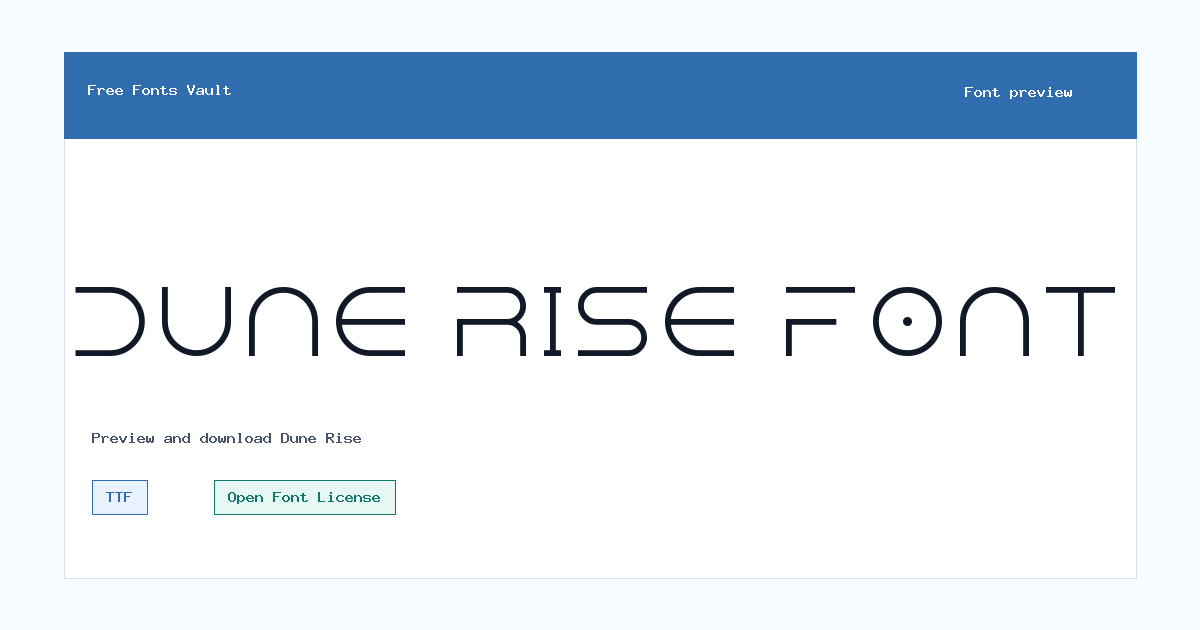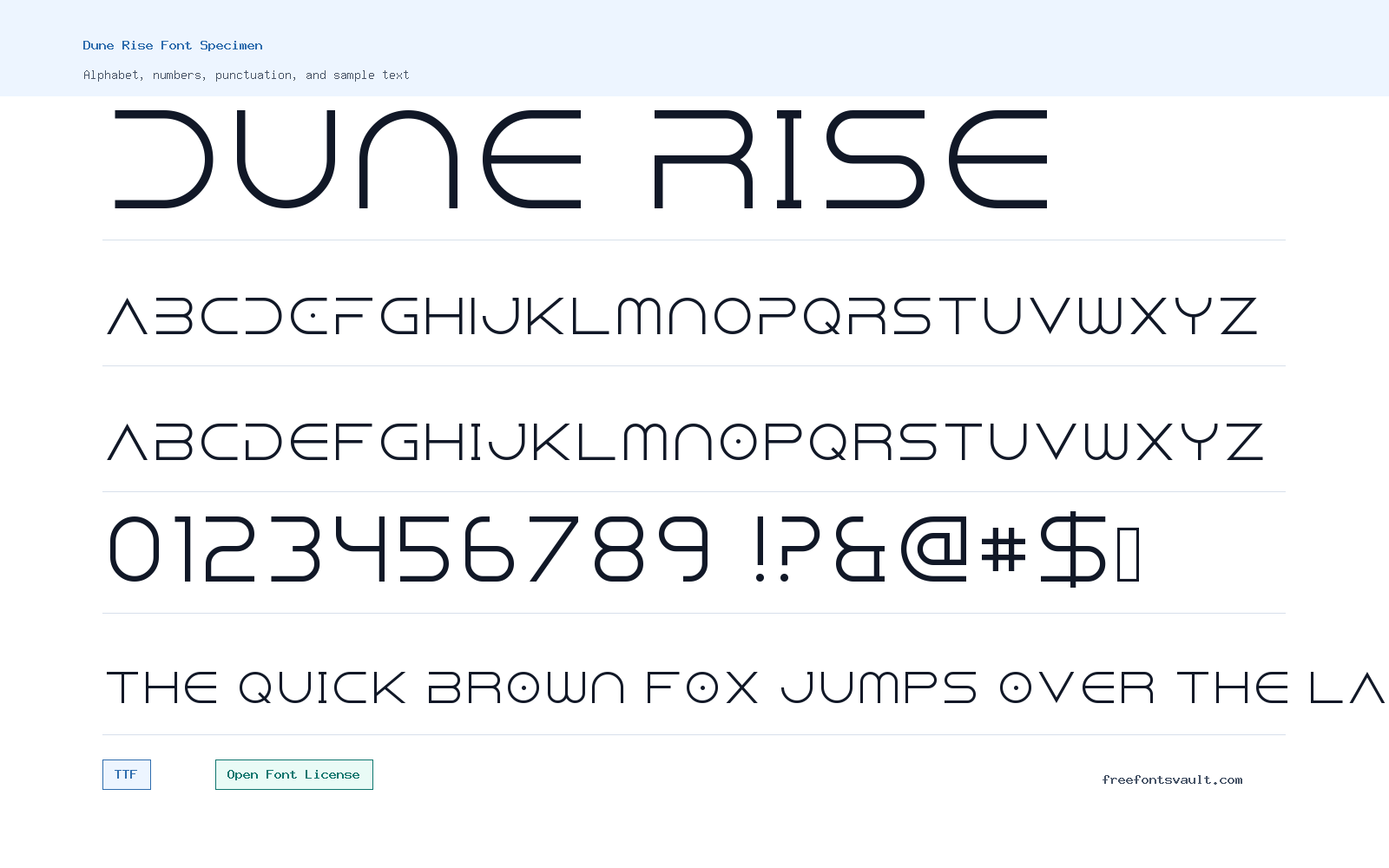
Dune Rise
Dune Rise font.
Dune Rise is a futuristic display font with a clean sci-fi feel, made for short text that needs a sharp, engineered look.
About Dune Rise
Dune Rise works best as a headline and title font rather than a long-reading text face. Its style is suited to projects that need a technical, space-age, or minimal science-fiction tone. Use it for big words, compact labels, posters, game-style graphics, tech-themed thumbnails, album covers, and title cards where the lettering can stay large enough to show its shape clearly.
Dune Rise has a cinematic, futuristic feel with wide letterforms and a strong science-fiction mood. It is built for display settings where the shape of the word matters as much as the text itself. Use it for posters, fan art, game graphics, title cards, and visual concepts that need a sleek desert-or-space atmosphere.
- Futuristic sci-fi display style for titles and short text
- Useful for large headline settings, logos, posters, and digital graphics
- Best paired with a plain sans serif for captions and body text
- Sci-fi posters and title graphics
- Game logos and stream overlays
- Technology-themed thumbnails
- Album or cover art with short wording
- Minimal futuristic branding concepts
- Large display text in mockups and presentations
Use Dune Rise at larger sizes and keep the text short. Test punctuation, numbers, and mixed-case wording before export, especially for logos or title art. For readable layouts, set supporting text in a neutral sans serif and let Dune Rise carry the main display line. Set Dune Rise in short phrases and give the letters room. It usually benefits from wide spacing, dramatic contrast, and a simple supporting font that does not compete with the headline.
Is Dune Rise good for body text?
It is better for display use. Use it for titles, logos, posters, and short phrases, then choose a simpler font for paragraphs or small UI text.
Is Dune Rise best for long text?
No. It is a display font for names, titles, and short phrases. Use another font for paragraphs or instructions.